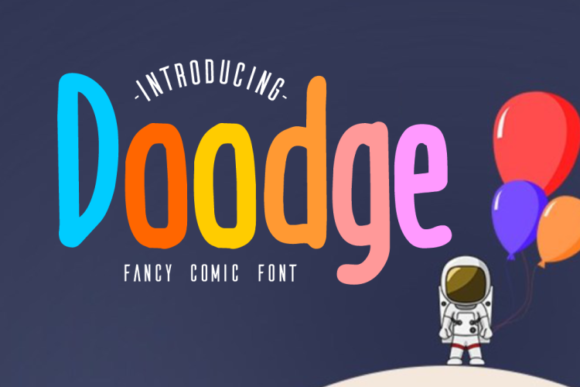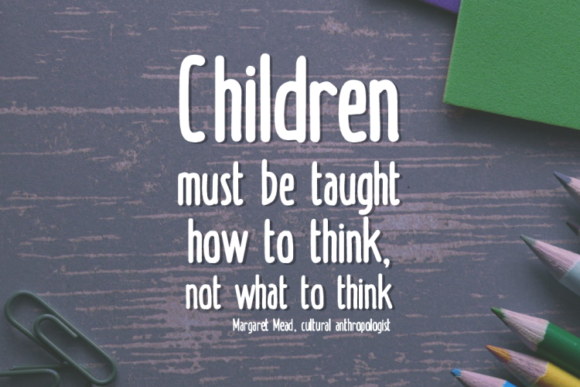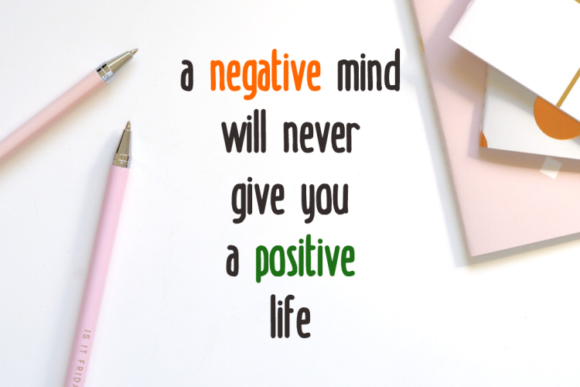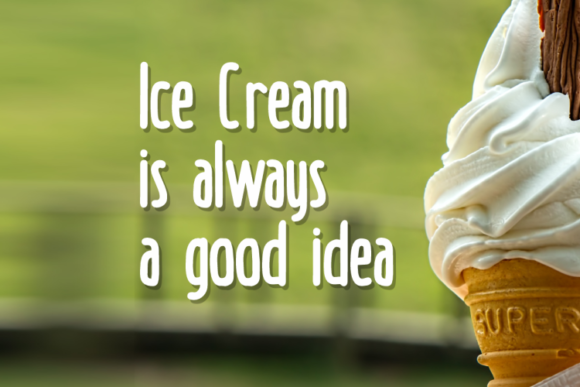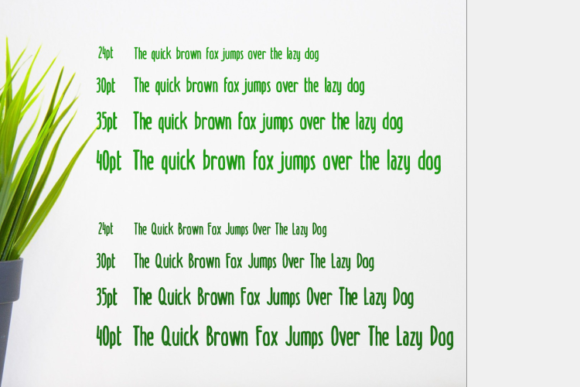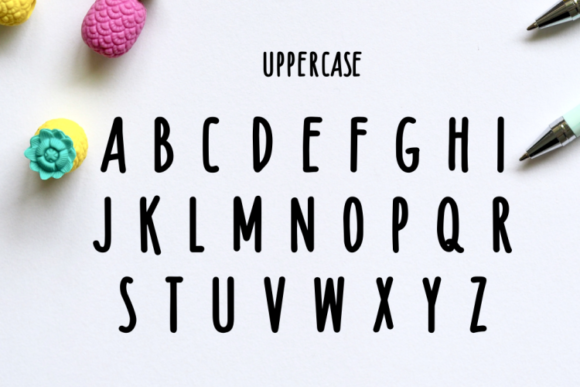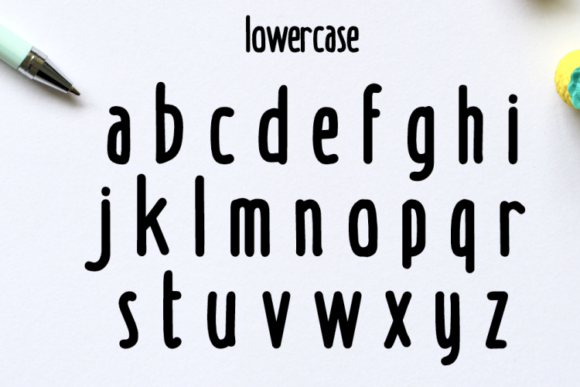
About Doodge Font
Doodge is a font that will make your design looks modern, unique, and fun. Perfect for playful Doodge font with cartoon style. This font is suitable for children, Kids, Boys, Kindergarten, Birthday, and Comic purposes. Doodge font has a unique glyph and fun style.